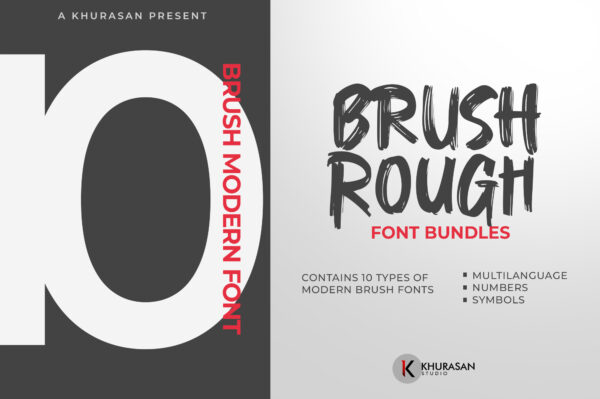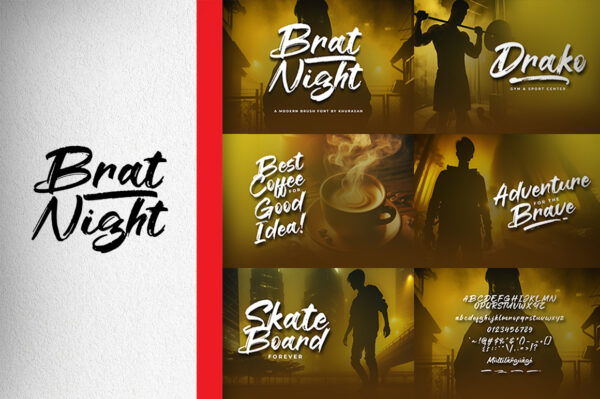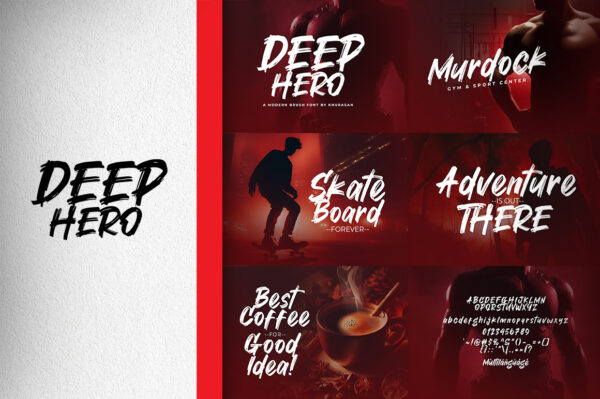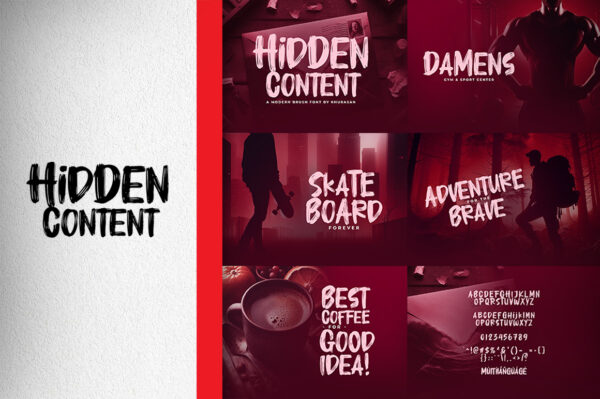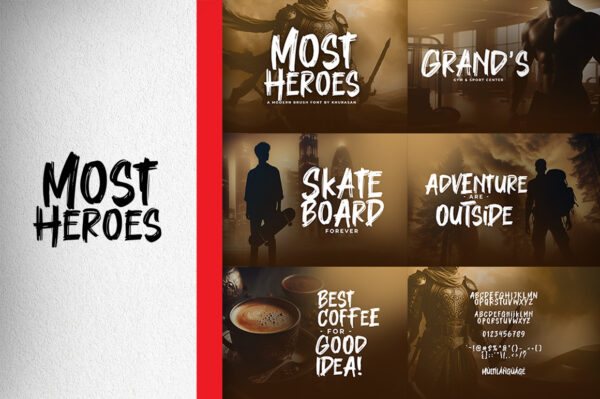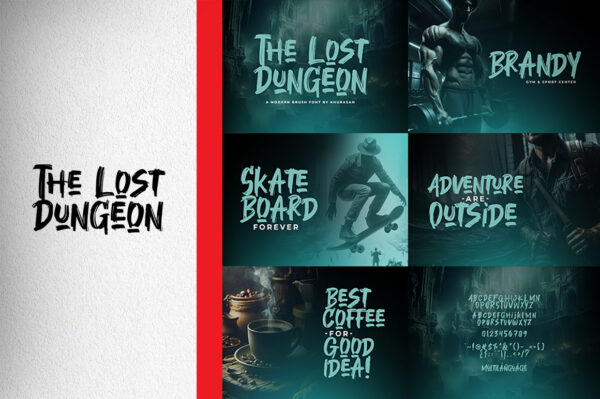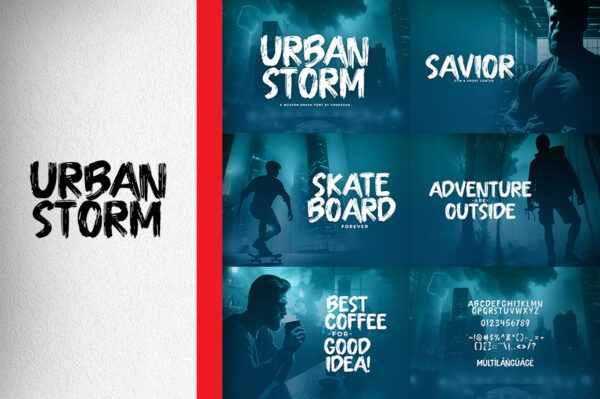
Brat Night
Deep Hero
Foxgrab
Hidden Content
Hurt Time
Most Heroes
Orca Role
The Lost Dungeon
Theory Gank
Urban Storm
The Brush Rought Font Bundle is here! Packed with 10 font modern brush theme only $18. This font bundle contains 10 high quality brush typeface, modern, rough, and stylish fonts with unique variation styles. The Brush Rought Font is perfect for your modern projects design, such as: Movie Poster, Lettering on Cover Books, Album music cover, Logo Brand, and much more.
• Brat Night
• Deep Hero
• Most Heroes
• Orca Role
• Foxgrab
• Hidden Content
• The Lost Dungeon
• Theory Gank
• Hurt Time
• Urban Storm
Brush Rought Font Bundles